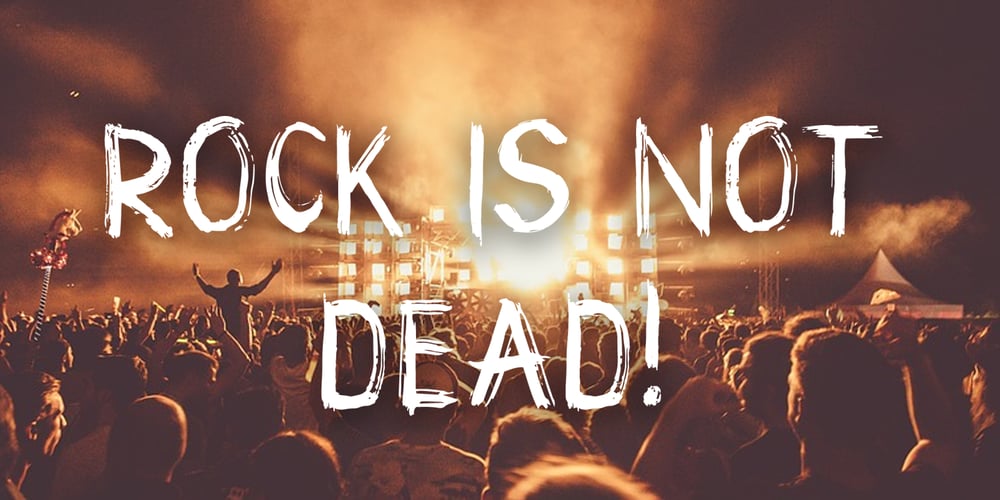
Drum Font Family was designed by Ksenia Kuznetsova and published by Peliken. Drum contains 1 styles and family package options. Drum – handmade brush display font in grunge style. This font doesn’t have lowercase glyphs. That makes it perfect for headlines, design logos, quotes prints on t-shirts, rock festivals. Includes Russian Cyrillic characters.